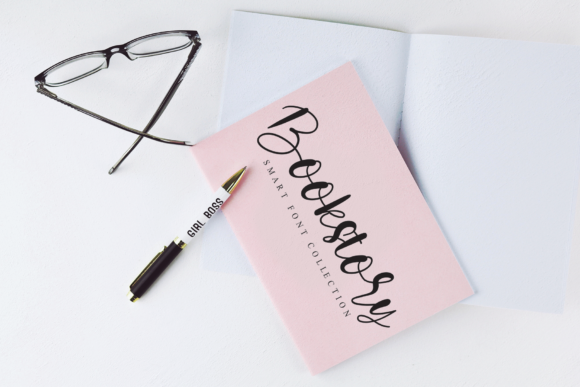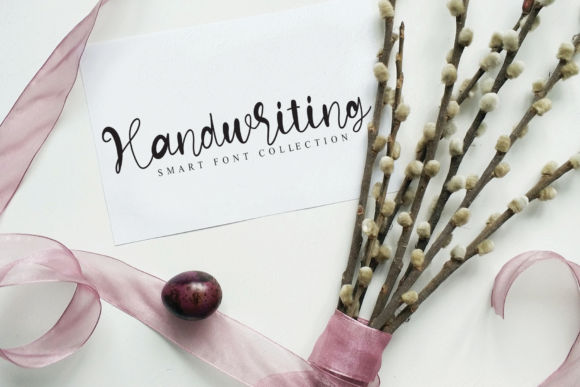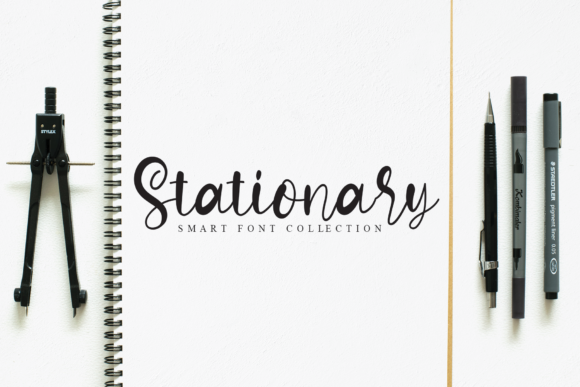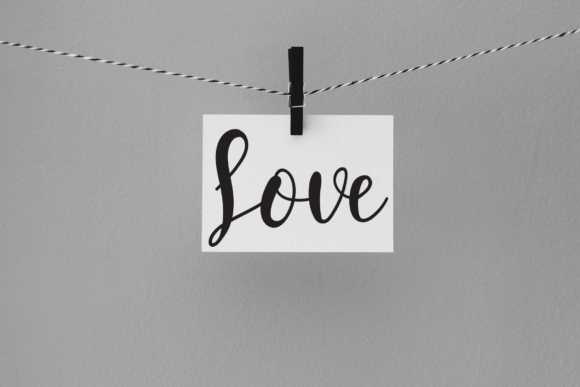
Alone Font
About Alone Font
Alone is a chic, whimsical and round lettered handwritten font, that emanates sophistication and elegance. Its stylish alternates and ligatures make this font the perfect match for any project.